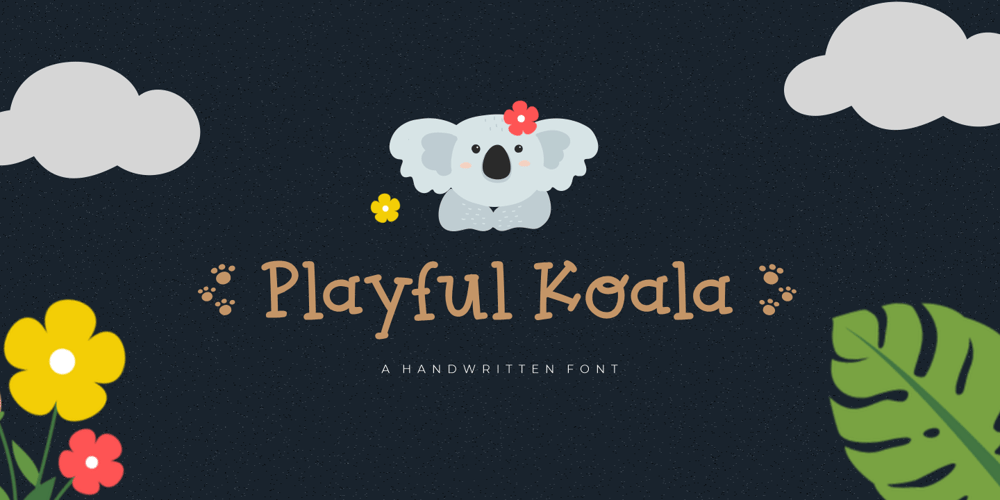
Playful Koala Font Family was designed by Risca Anitawati and published by Reyrey Blue Std. Playful Koala contains 1 styles and family package options. Playful Koala is a cute and fun typeface. It’s hand-lettered with lots of love and made for the young at heart. Playful Koala will be perfect for books, greeting cards, logos, posters or anything that requires a fun and happiness look!Features :· All Uppercase and Lowercase· Number & Symbol· Supported Languages· Swash· PUA Encoded